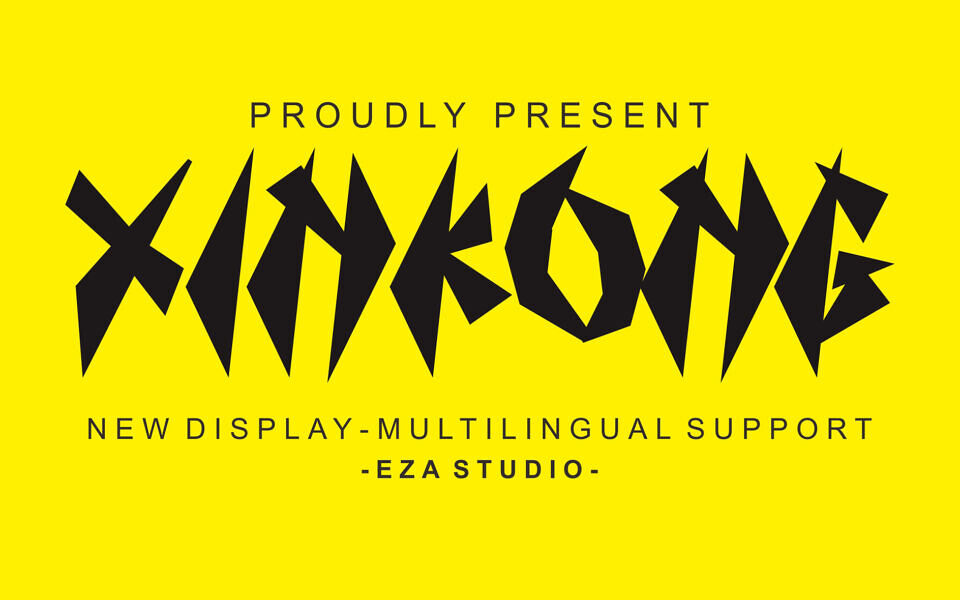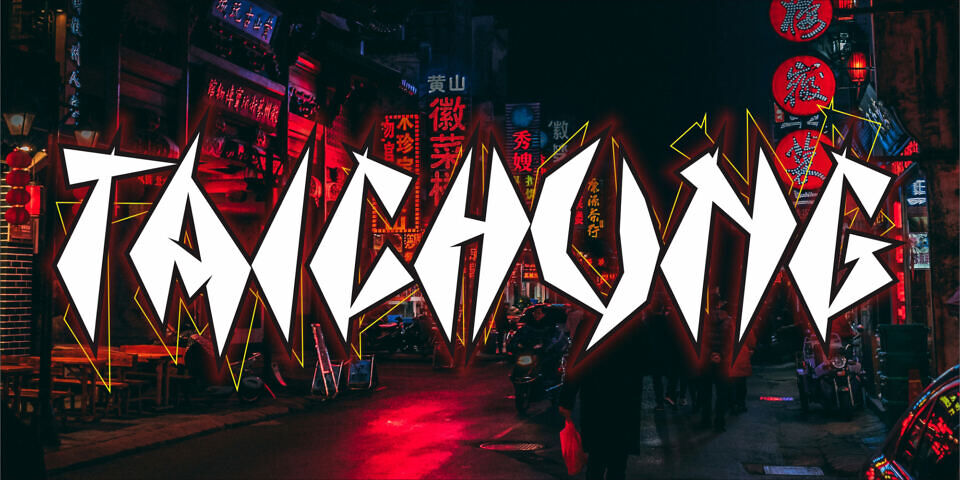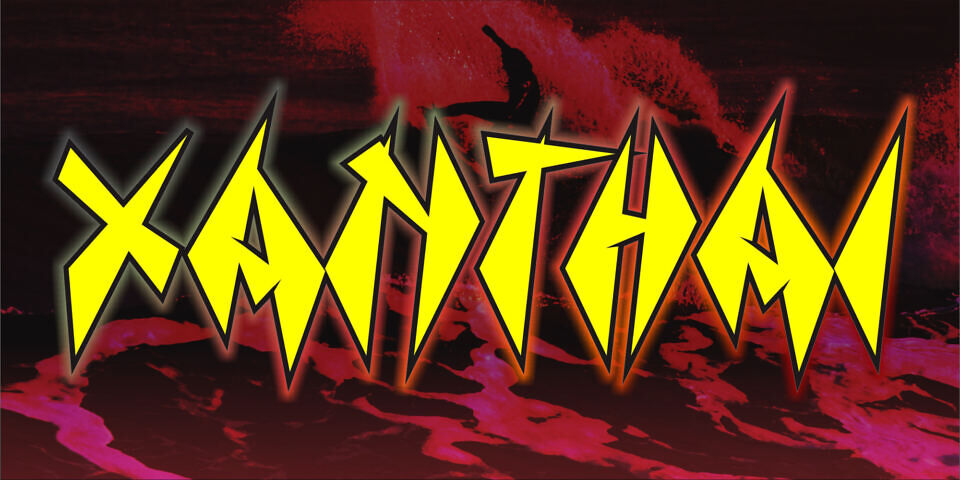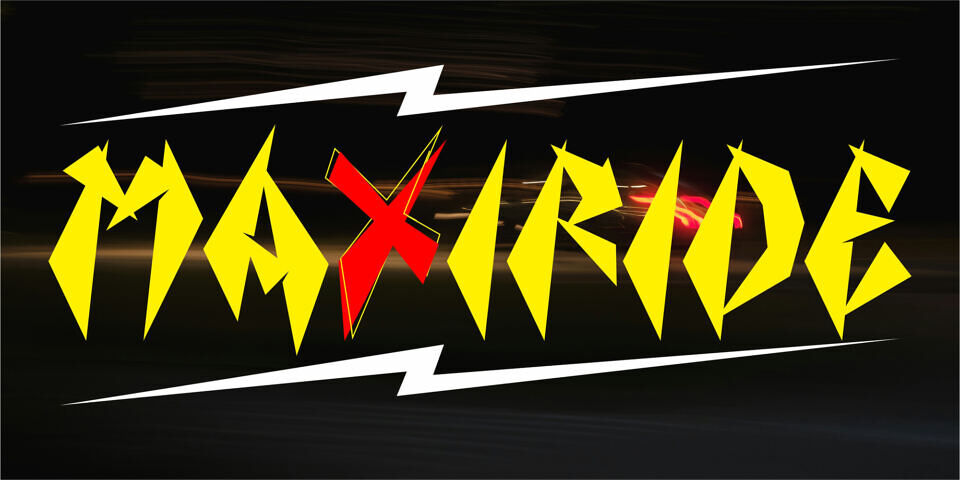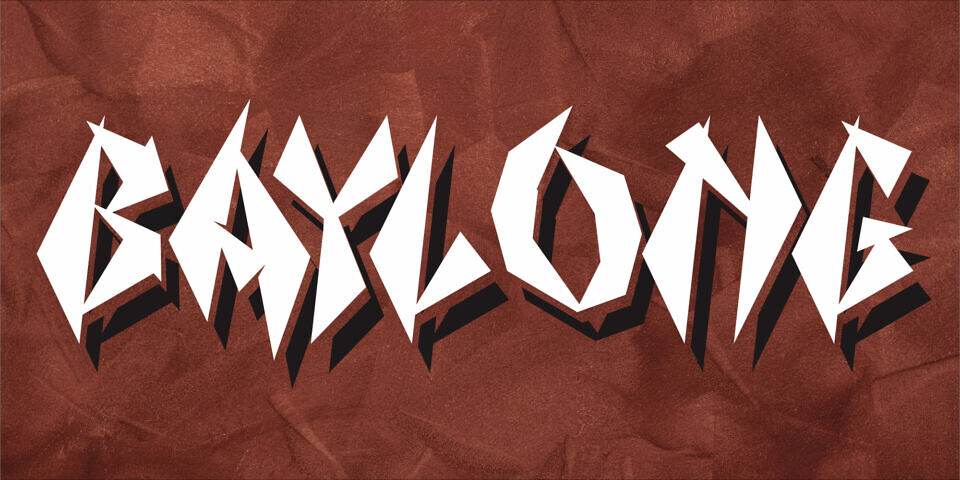
Xinkong Font
Xinkong is a playful new font with sharp characters. Ready to bring modern, trendy, and fun typography to your design projects. This font has its own unique characteristics, giving it a very unique look with a balanced thickness and sharp shape.
Xinkong font was meticulously designed to work perfectly to create a unique and engaging impression. This typeface is perfect for use in writing movie titles, books, logos, and more.